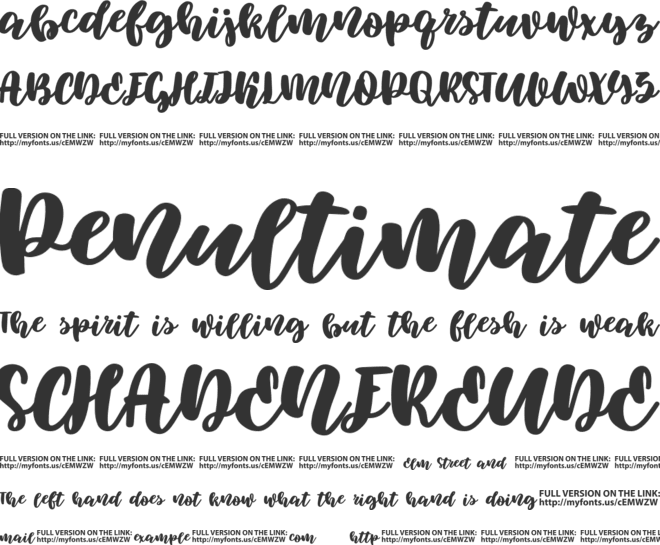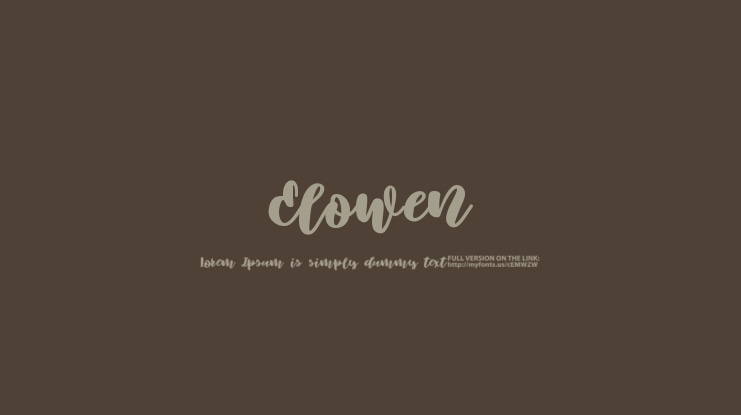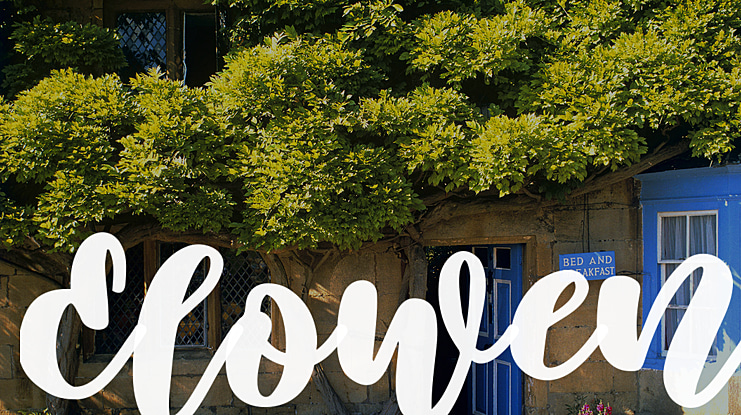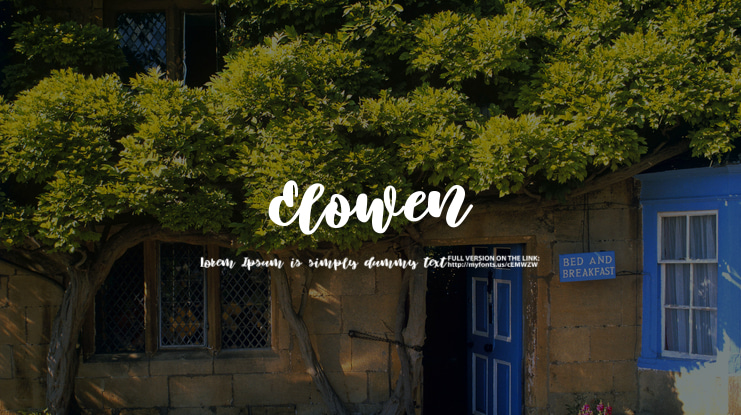
Elowen Font
Full version of Eloween includes two typefaces: • Elowen - a bold script font with a dancing baseline and some double letter ligatures for a natural look. • Elowen Caps - an excellent companion for Elowen script in cases where a headline needed.
Full version supports the following languages: English, French, Italian, Spanish, Portuguese, German, Swedish, Norwegian, Danish, Dutch, Turkish, Polish, Finnish, Romanian, Hungarian, Estonian, Russian (and other languages with cyrillic alphabet) and more.